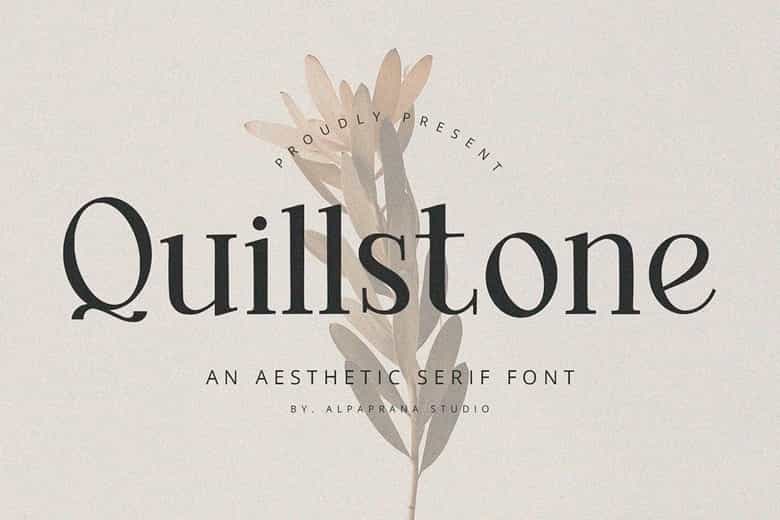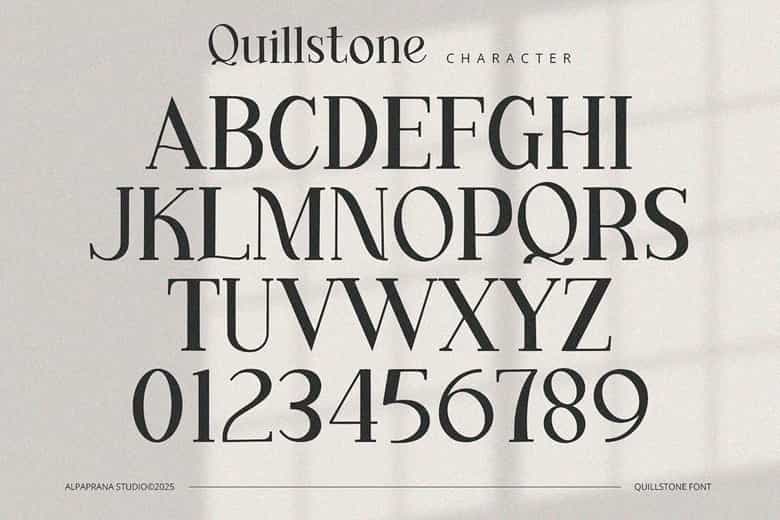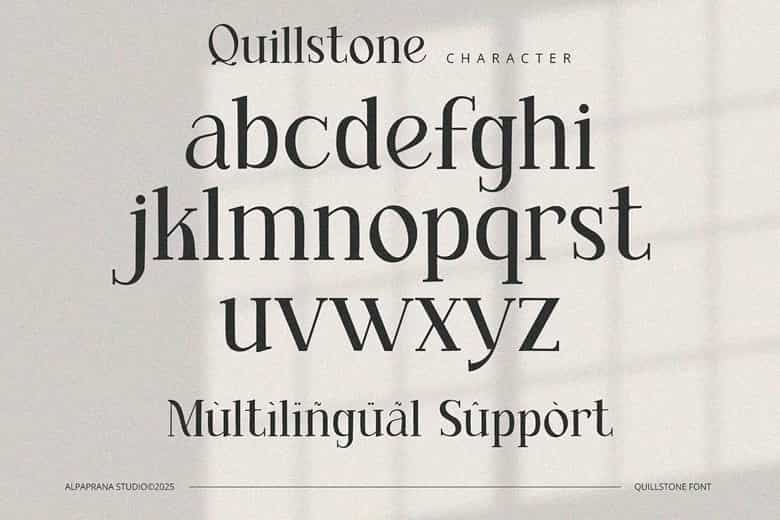
Quillstone is an aesthetic serif typeface. It will be predominantly useful in branding, logo design, lettering, logotype, clothing, poster, magazine, packaging, posters, shopping bags, t-shirts, book covers, photography, special event and other designing purposes.